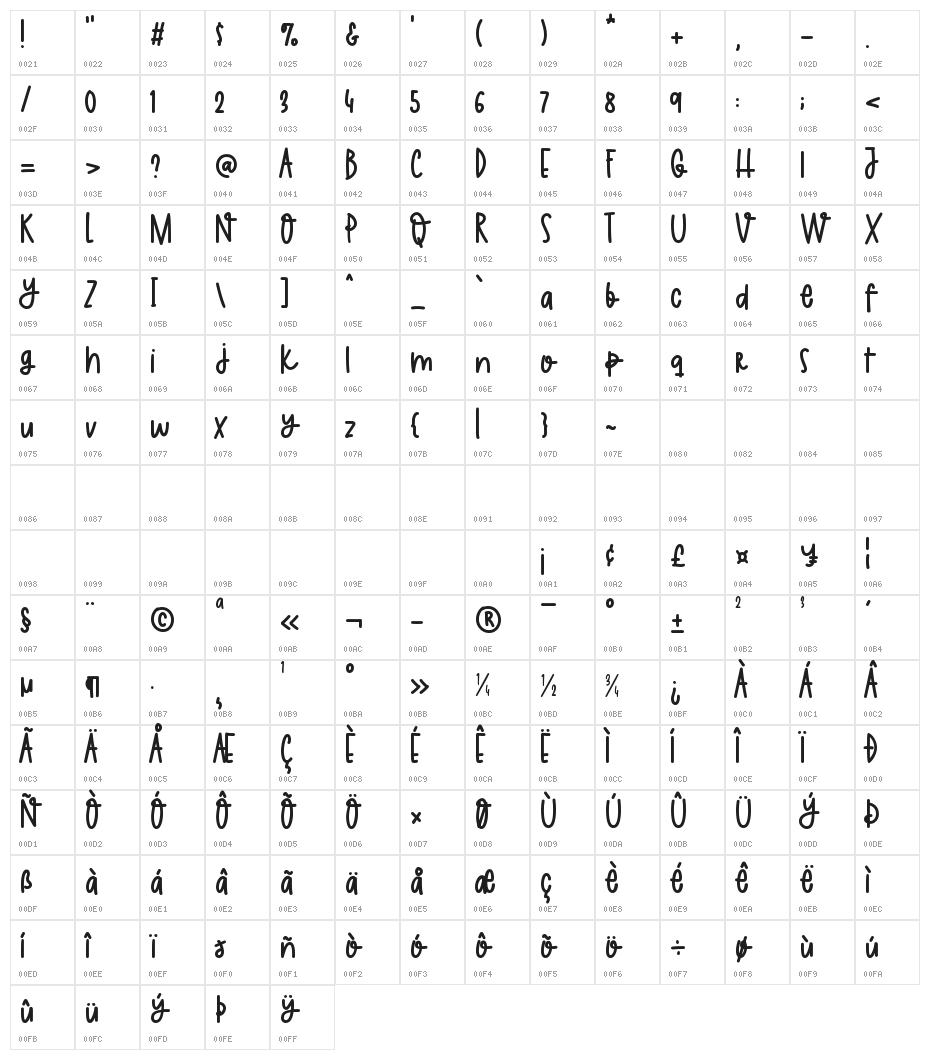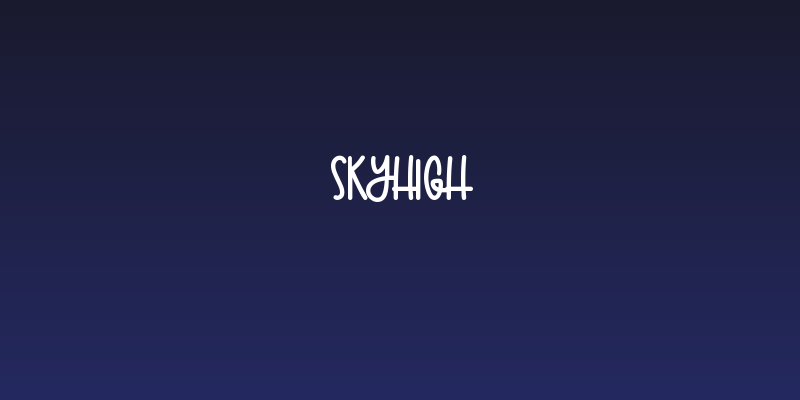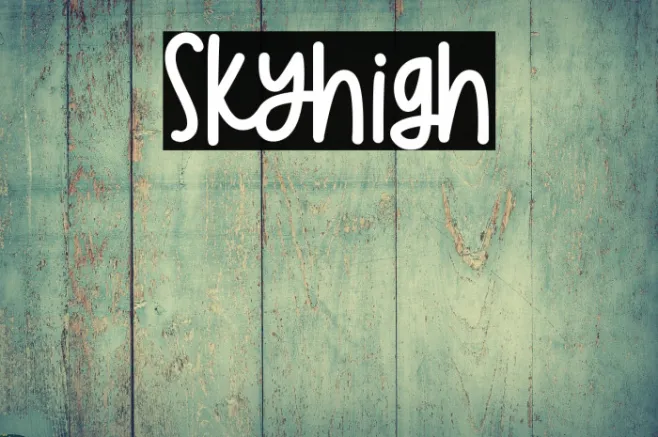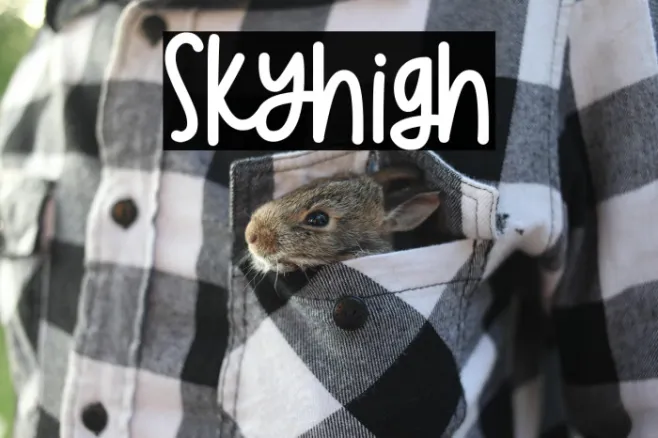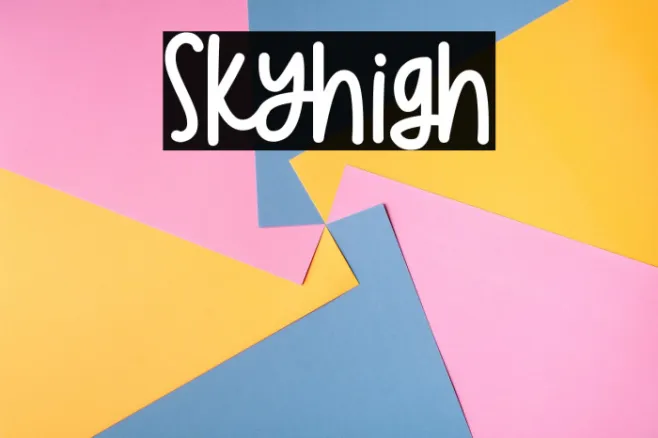
Skyhigh Font
Skyhigh Description
A playful, handwritten font with a casual and informal style, featuring irregular strokes and a lively appearance.
| Overall Style | Casual, Playful |
| Use Case | Informal text, Creative projects |
| Proposed Projects | Greeting cards, children's books, informal posters. |